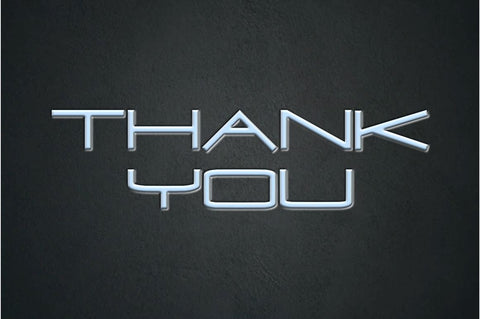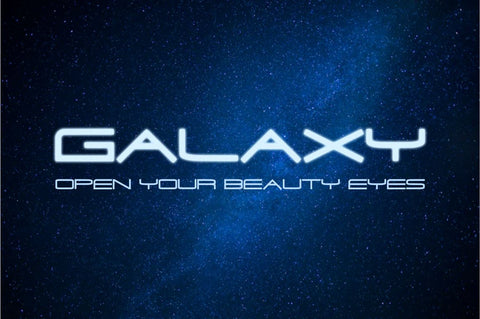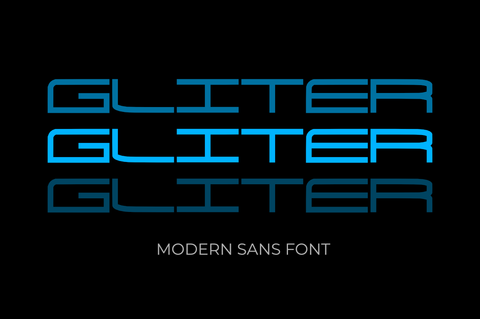
Gliter
Gliter is a unique sans serif font with a modern concept. This font was created to help make it easier for you to create a logo in the Monogram style. This font is very compatible so it's easy and simple to use!